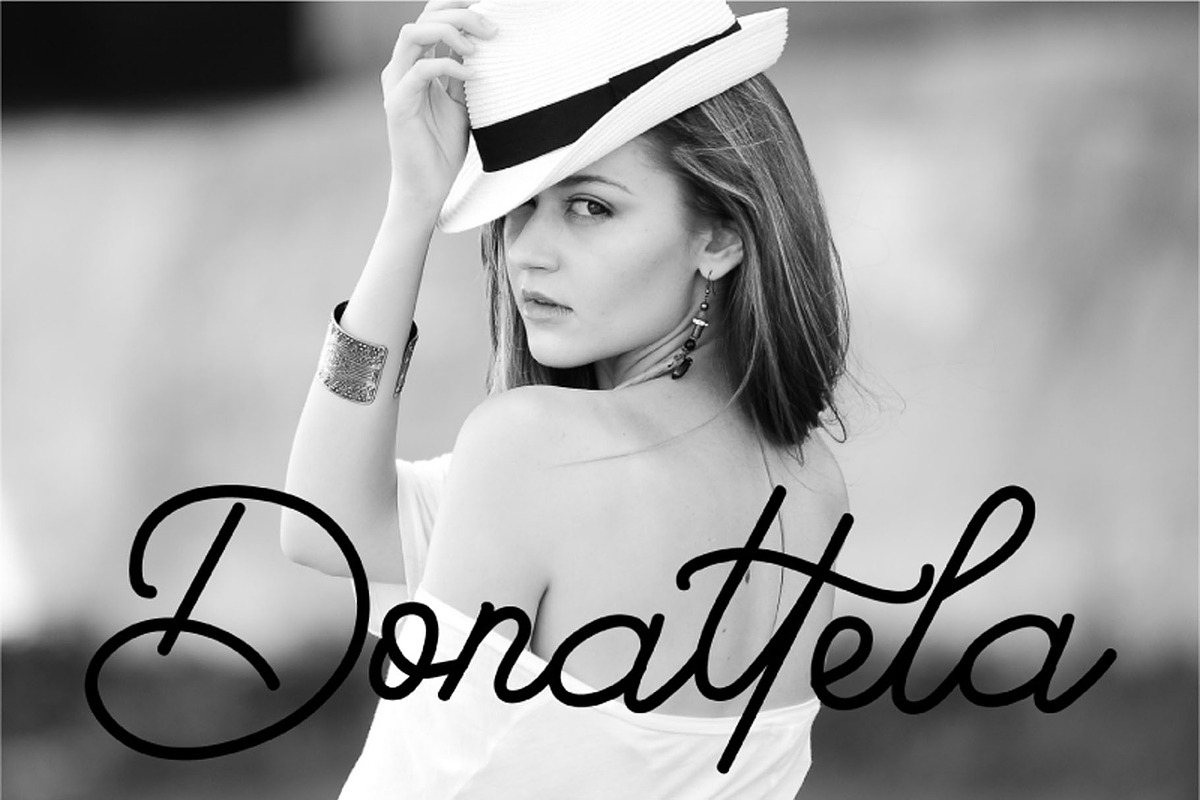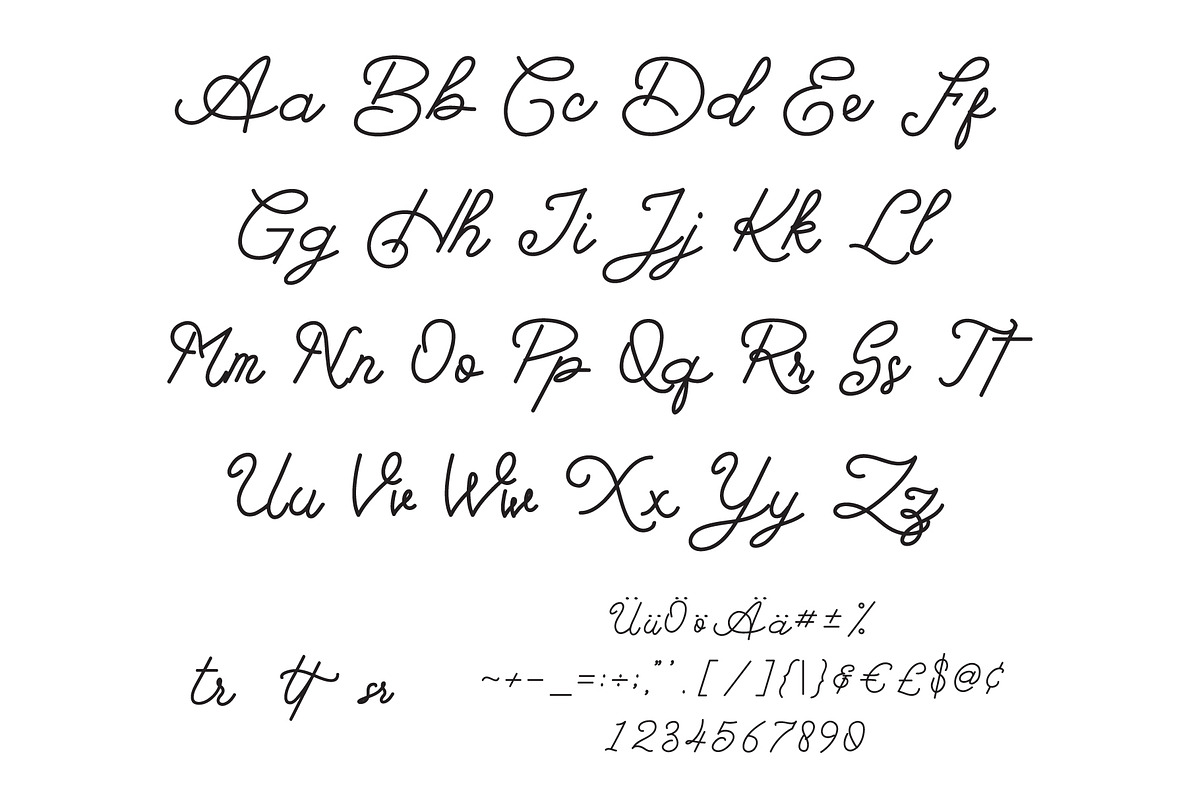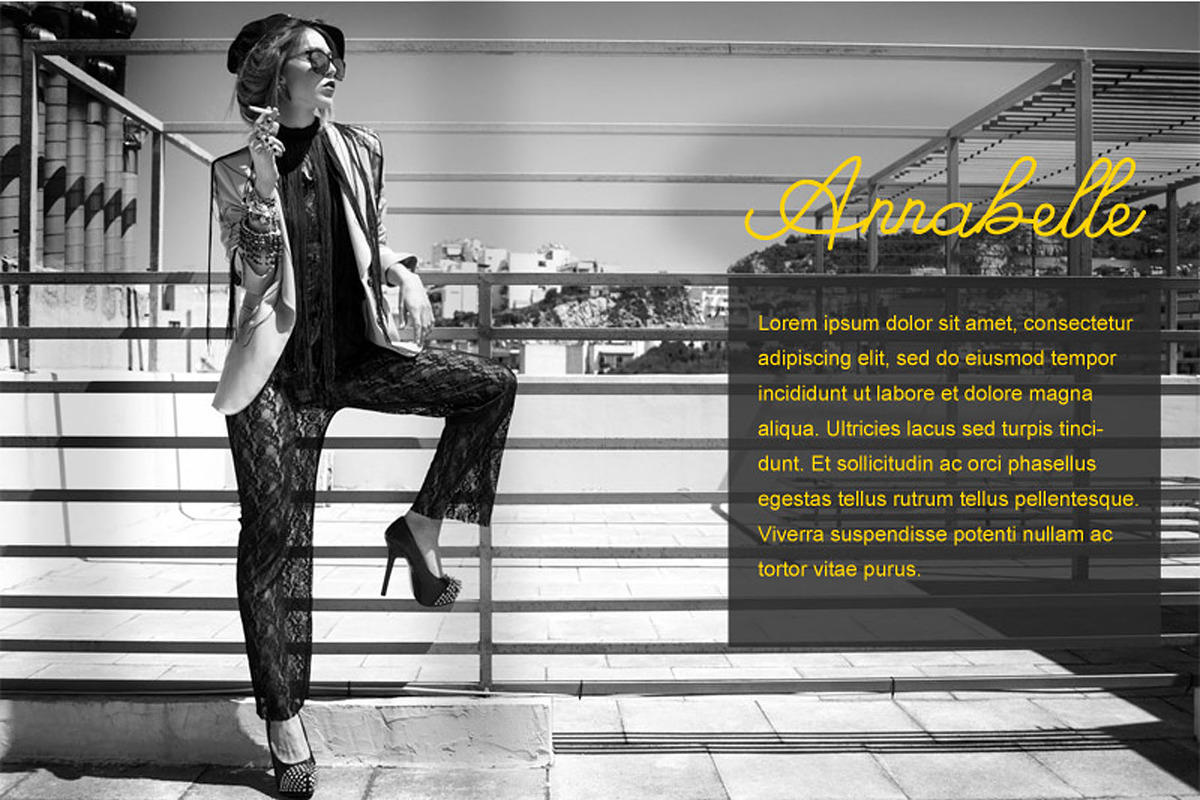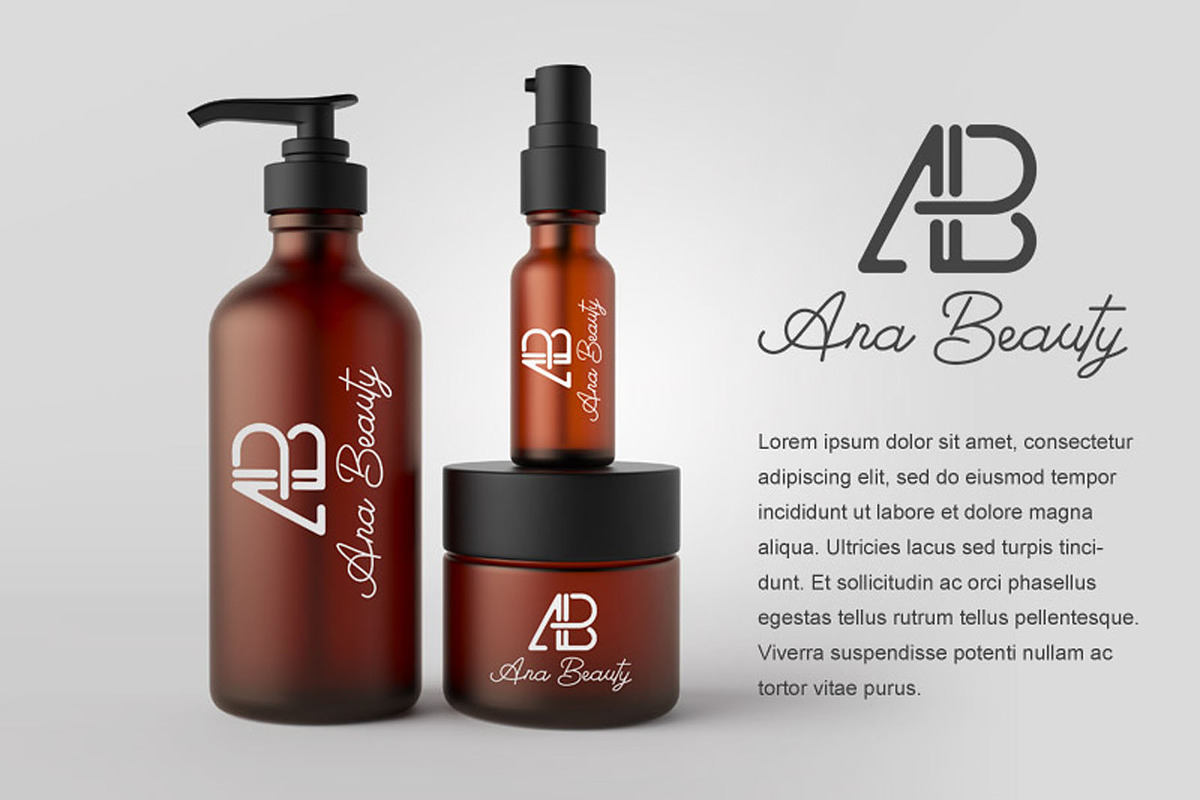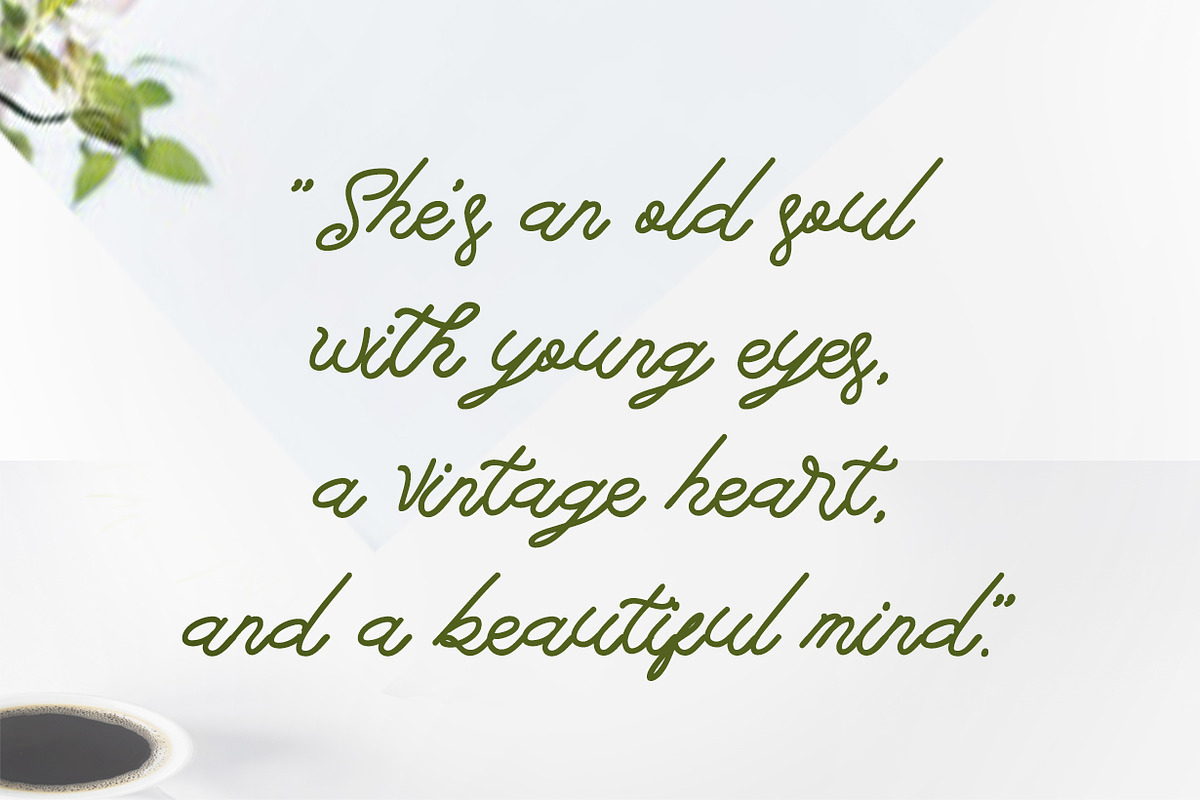
Anthalucya vintages monoline font,
DETAILS Meet my new font Anthalucya!
Anthalucya includes full set of lovely uppercase and lowercase letters, multilingual symbols, numerals and punctuation. This is so perfect for invitations, monograms etc
Why Anthalucya vintages monoline font, is worth a look
Anthalucya vintages monoline font, by Anomali Creatype fits naturally into Branding, posters, packaging, typography.